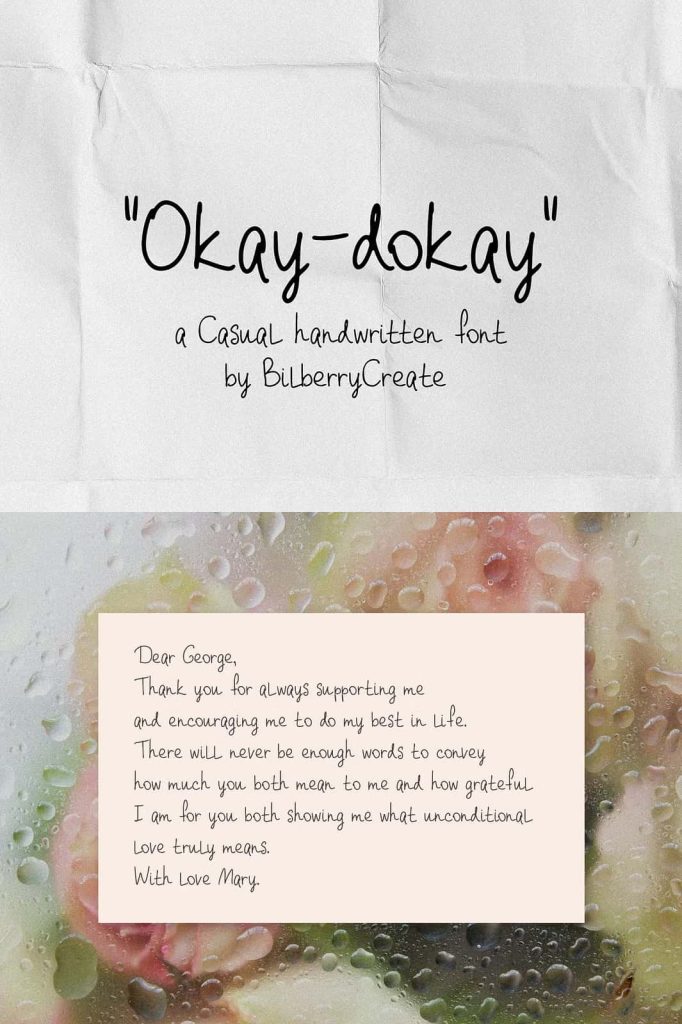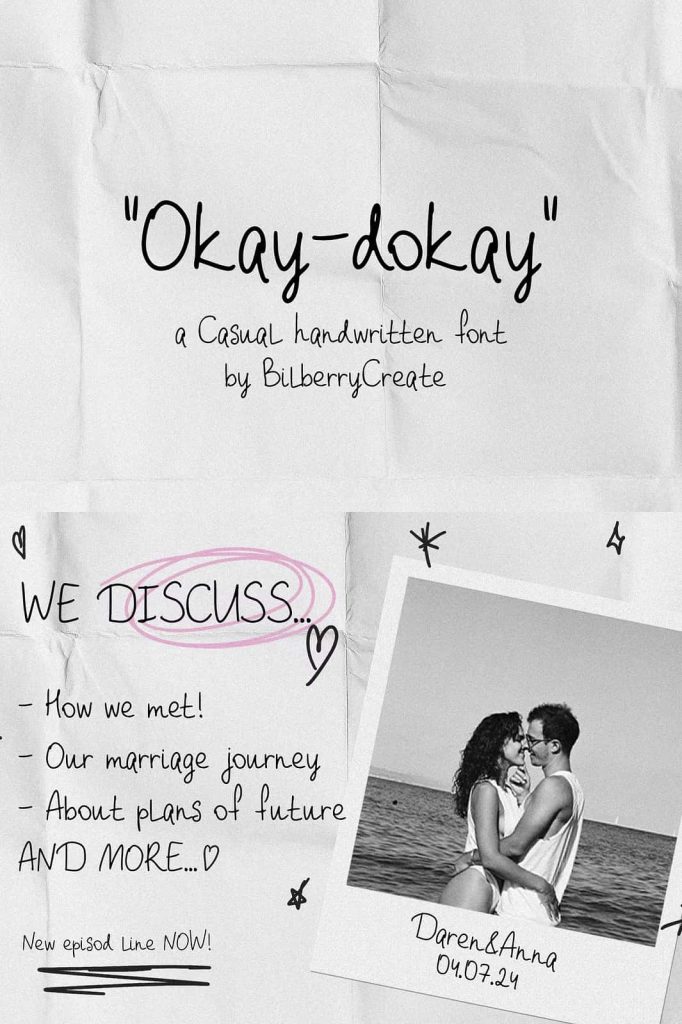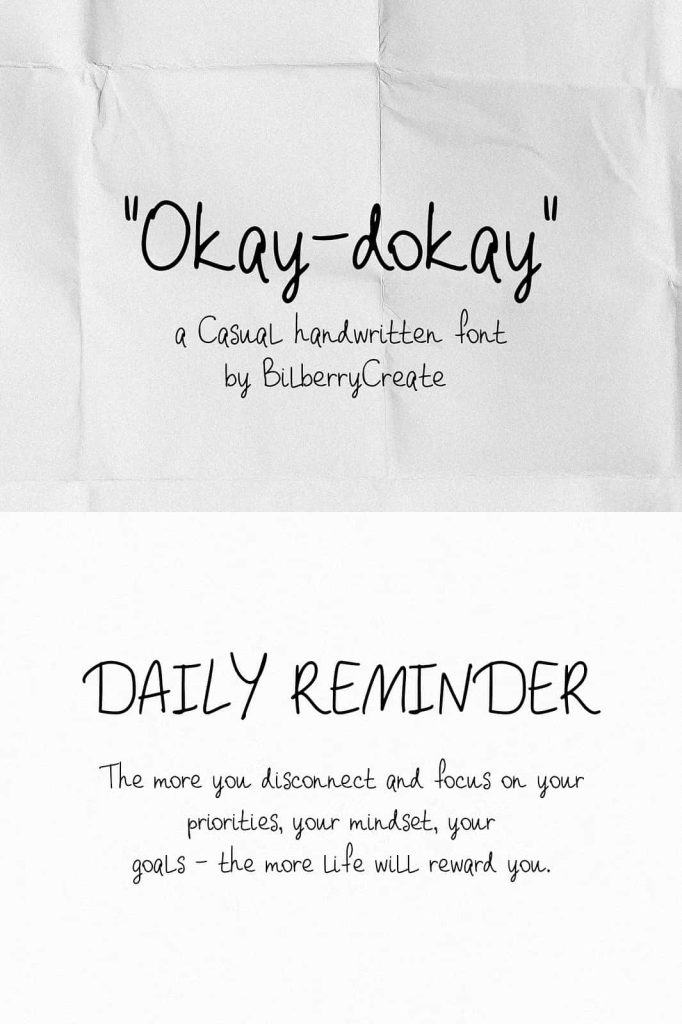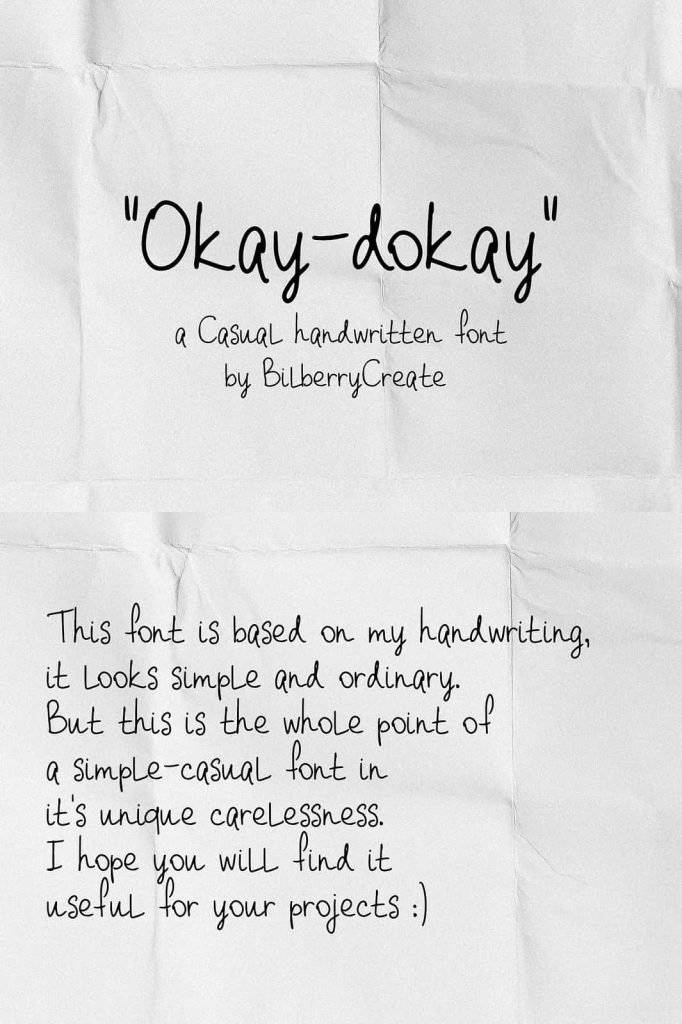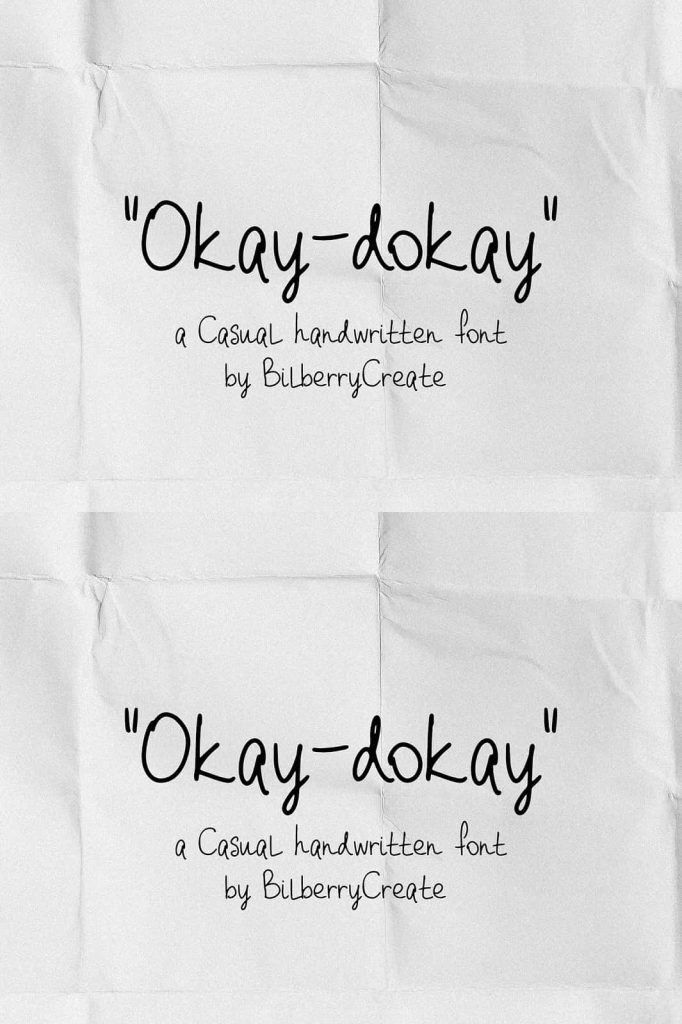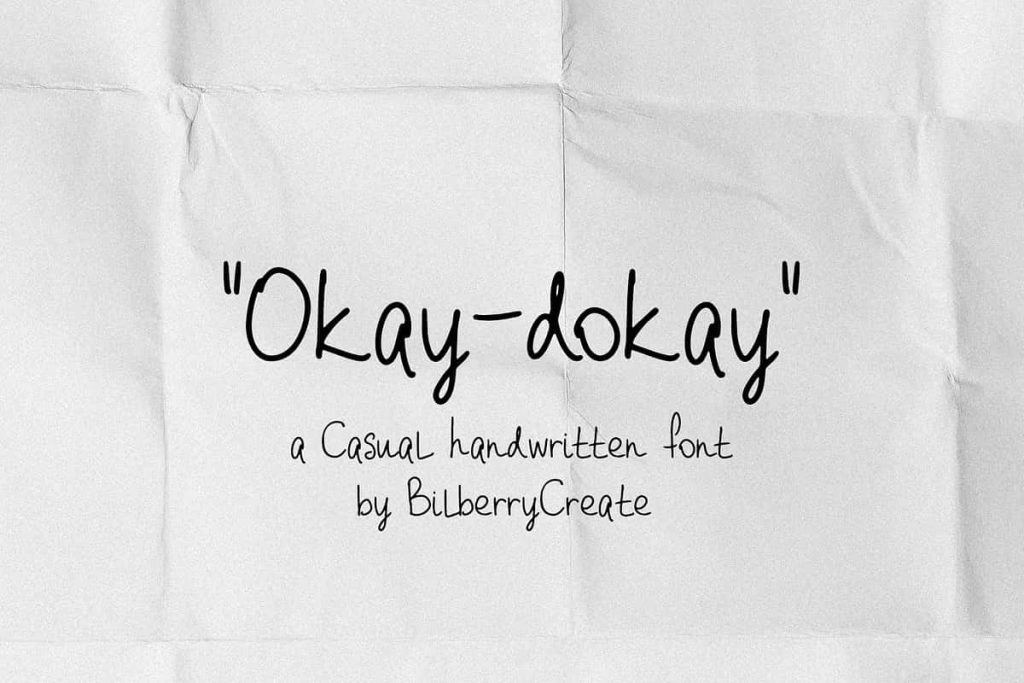
Okay-Dokay Handwriting Font
Okay – dokay” – Casual handwritten font!
This is a perfect handwritten font for any project. Be sure to click on the image to see all elements. This product was created to help you make your digital images even more beautiful and unique.